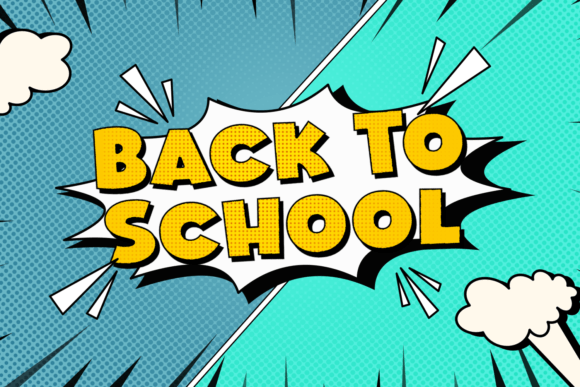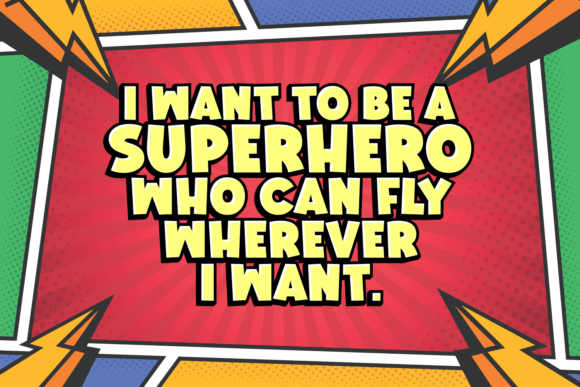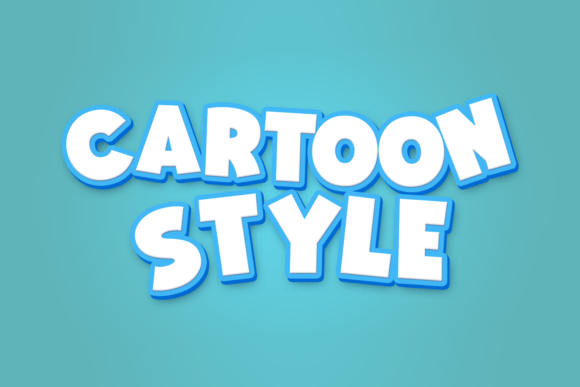
Introduction to Play Brave Font
Have you ever stared at a blank page, waiting for inspiration to strike? For designers, this moment can be both exhilarating and intimidating. It’s the perfect opportunity to unleash your creativity and bring a unique vision to life. And that’s exactly what the Play Brave Font is designed to do – add a touch of joy and playfulness to your typography designs.
As a cartoon-style display font, Play Brave Font is a design resource that will elevate your creative project from ordinary to extraordinary. With its thick and unique typeface, you can create eye-catching headlines, titles, and even book covers that demand attention. Plus, with a transparent background, the possibilities are endless – from product packaging to advertising materials, the Play Brave Font is the perfect addition to any design.
Key Features of Play Brave Font
- Transparent background option for versatility in design, allowing seamless integration with various backgrounds.
- Supports resolutions up to 300 DPI, ensuring crisp and clear text even at high magnifications.
- Available in multiple sizes, from 12 to 72 points, making it suitable for a variety of design applications.
- Perfect for designers and artists looking for a unique and eye-catching font to add a bold touch to their creative project.
Honest Review: Play Brave Font
I recently came across the Play Brave Font, and I must say it’s an interesting addition to my design resource collection. The font is free to download, which is always a plus, but the real question is whether it’s worth using in your creative project.
Here are a few things that I think work well with the Play Brave Font:
- ✨ High-quality design: The font has a clean and modern aesthetic that’s perfect for modern design projects.
- ✨ Transparency options: The font has transparent background options, which makes it easy to work with and customize.
However, there are a few limitations that I’ve noticed:
- ⚠️ Limited character set: The font only has a limited character set, which may not be suitable for projects that require a wide range of characters.
- ⚠️ Not ideal for small text: The font can be difficult to read in small sizes, which may limit its use in certain design projects.
Overall, I think the Play Brave Font is a solid addition to any designer’s collection. While it may have some limitations, its high-quality design and transparency options make it a great choice for creative projects. Just be sure to test it out before using it in your final design.
Play Brave Font
The Play Brave Font is a versatile design resource that can be used in a variety of creative projects, such as logos, posters, and social media graphics. It’s perfect for designers who want to add a touch of personality to their designs.
To get the most out of the Play Brave Font, use it on a transparent background to create a modern and sleek look. Experiment with different font sizes and colors to add depth and interest to your design. With its high-quality design, the Play Brave Font is a great addition to any creative project.
Is the Play Brave Font suitable for high-quality design projects?
Yes, the Play Brave Font is designed to be a high-quality design resource. With its unique and bold style, it’s perfect for adding a touch of creativity to your project. You can use it on a transparent background or with a solid color to make it stand out.